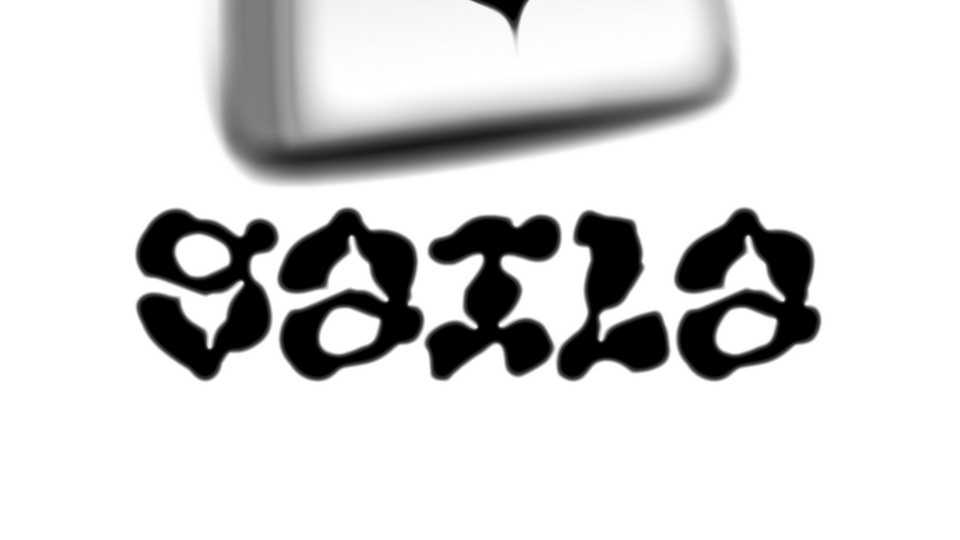
Download Gaila font, a spooky display typeface inspired by Lithuanian mythology. Gaila is the evil night spirit. It was believed that in dreams she would come and torture people and animals.
Designer: Beržulis